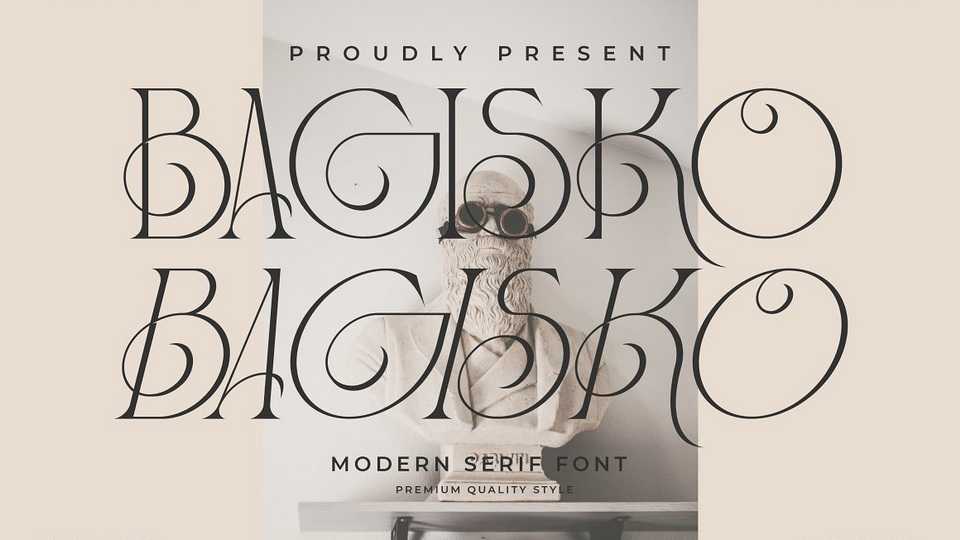
Download Bagisko font, a serif modern and classic typeface that has own unique style and modern look. Bagisko font is perfect for an elegant and luxury logo, book or movie title design, fashion brand, magazine, clothes, lettering, quotes, and so much more.